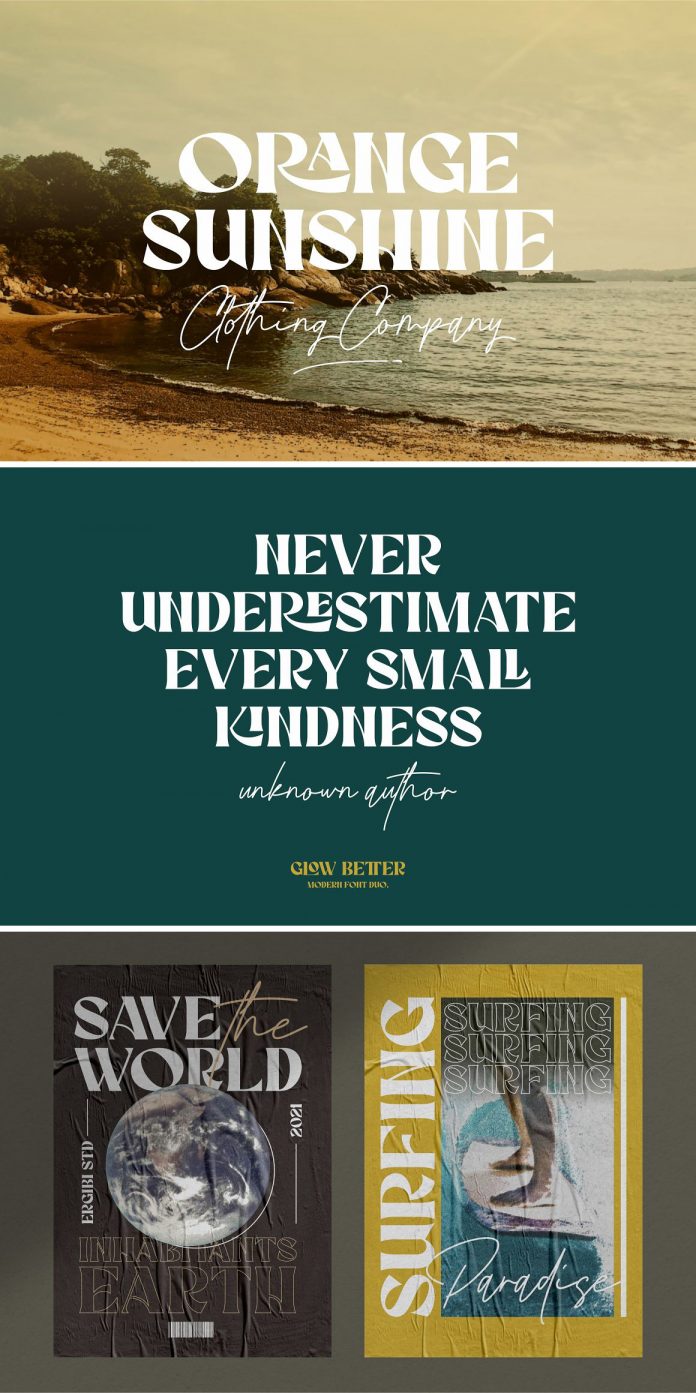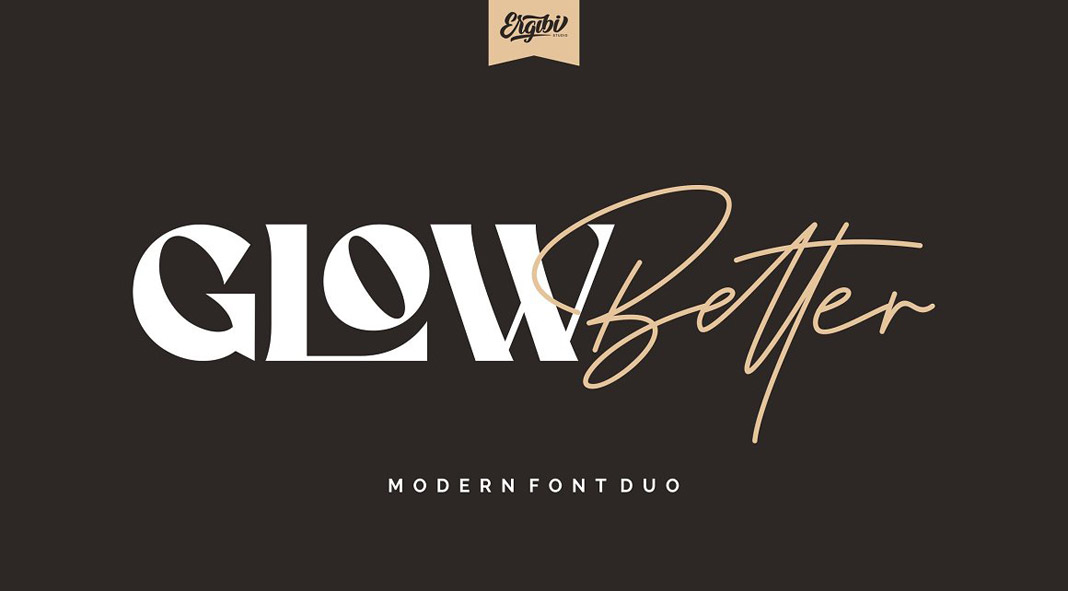
Glow Better, a decorative font duo consisting of an elegant serif and a handwritten script typeface.
Designed and published in 2021 by Ergibi Studio, Glow Better is a decorative font duo consisting of an elegant serif and a handwritten script typeface. Equipped with numerous ligatures, the display serif font is a great choice for striking logo designs, headlines, wedding invitations, social media posts, posters, packaging, just to name a few. In combination with the handwritten script font, your typography work will be a true eye-catcher.